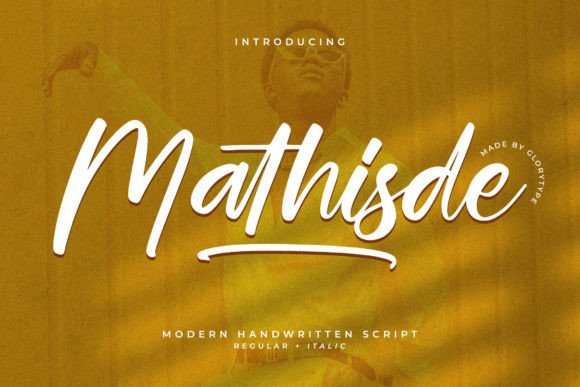
Introducing Mathisde, a font that captures the essence of modern calligraphy, meticulously crafted to bring a touch of elegance and artistic charm to your creative endeavors. Inspired by the beauty of handwritten scripts, Mathisde is designed to evoke a genuine and personal touch in your projects, adding a layer of sophistication and individuality that will leave a lasting impression.
Mathisde, a script font that dances across your designs with a fluid grace, is the perfect choice for those seeking a font that is both visually captivating and highly functional. Its smooth curves and gentle strokes create a sense of movement and energy that will add a touch of dynamism to your projects, whether it's a logo, branding design, homeware decoration, product packaging, or any other creative pursuit.
With its wide range of applications, Mathisde is a versatile font that beautifully complements various designs, from the timeless elegance of wedding invitations and greeting cards to the playful charm of t-shirts and mugs. Its versatility extends to digital creations as well, making it ideal for captivating social media posts, eye-catching website designs, and impactful presentations.
But what truly sets Mathisde apart is its ability to evoke emotions and create a personal connection with your audience. Its handwritten style has an inherent warmth and charm that invites viewers to engage with your content on a deeper level. Whether you're crafting a heartfelt message, designing a personalized gift, or creating content that resonates with your brand's values, Mathisde provides the perfect foundation to convey your message with authenticity and impact.
So, let Mathisde be your creative companion, guiding you through a world of design possibilities. With its timeless beauty, versatile applications, and ability to evoke emotions, Mathisde will elevate your projects to new heights of creativity, leaving a lasting impression on your audience.